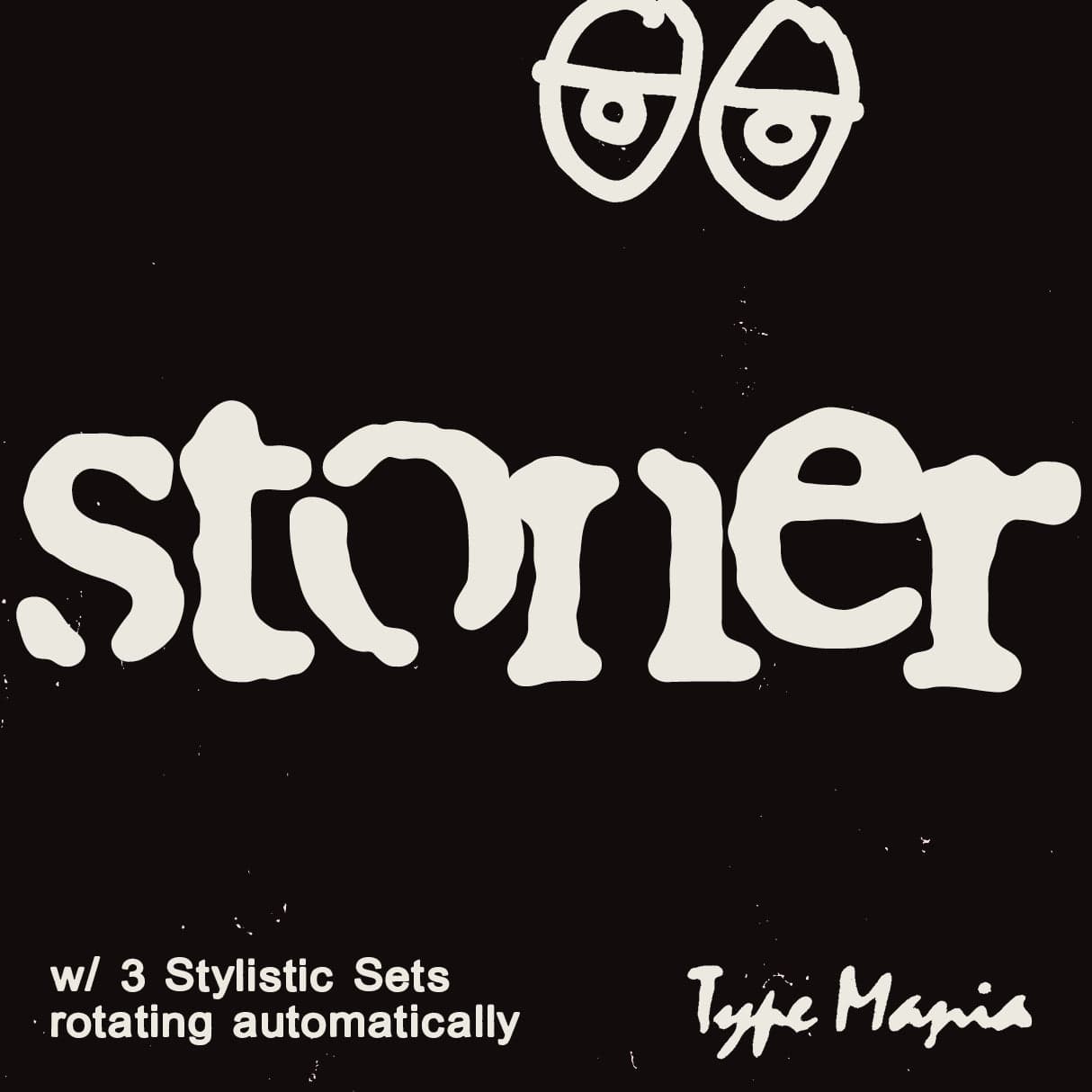
<p><strong>Stoner TM</strong> is a textured serif with subtly eroded forms for that worn-out feel—delivering realness without sacrificing legibility. It has automatically rotating stylistic sets: as you type, alternate letterforms cycle in to break repetition. No manual OpenType toggling required.</p> <p><strong>Zip includes</strong></p> <ul> <li>OTF file</li> <li>TTF file</li> <li>WOFF2 file</li> </ul> <p><strong>OpenType features</strong></p> <ul> <li>3 stylistic sets</li> <li>The font is programmed to automatically shift between the stylistic sets</li> </ul> <p><strong>Languages</strong></p> <ul> <li>Basic Latin</li> <li>Western European</li> <li>Euro</li> <li>Central European</li> <li>Pan African Latin</li> </ul> <p><em>Graphic Design is Easy (with Type Mania)®</em></p>